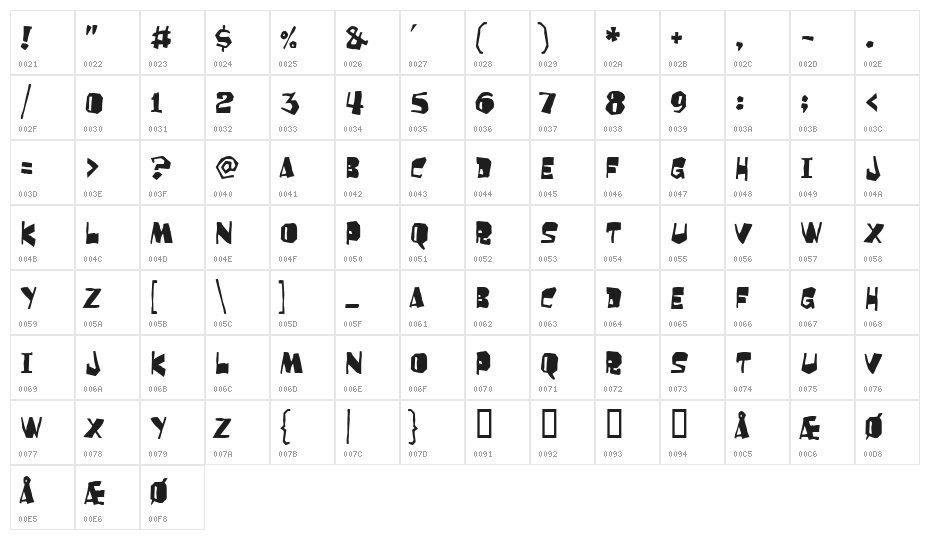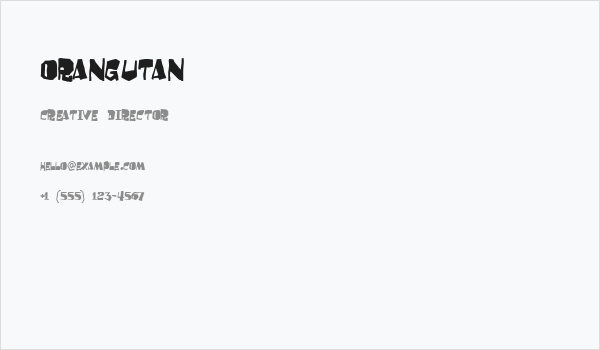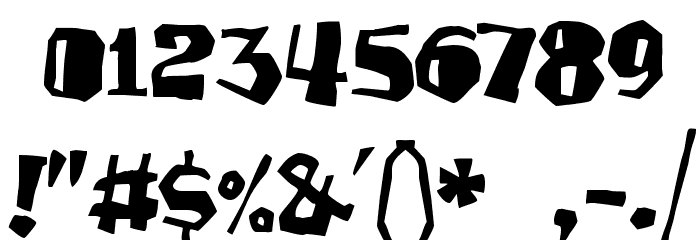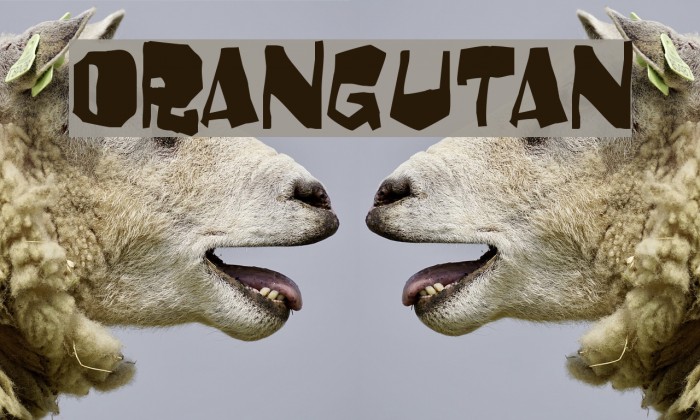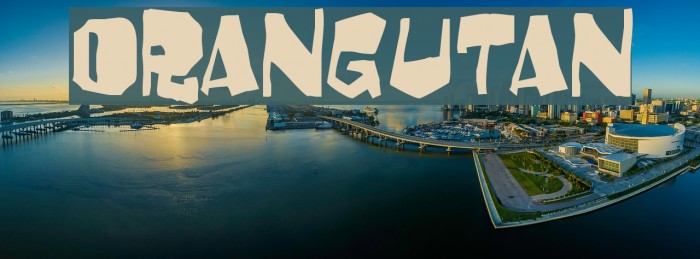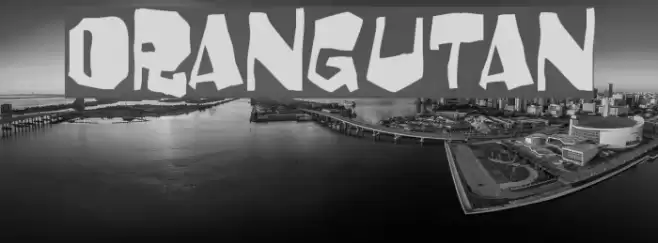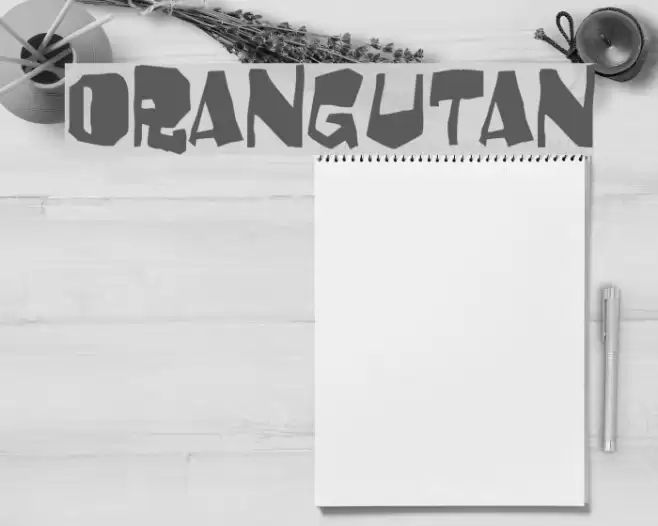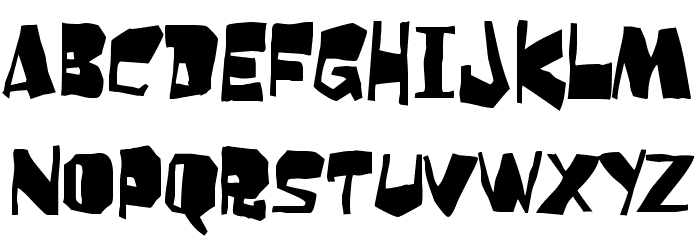
Orangutan Font
Orangutan Description
This font features a bold and dynamic style with a rugged, hand-drawn appearance. The characters are irregular and angular, giving them a unique, edgy look. The uppercase and lowercase letters maintain a consistent style, with thick strokes and sharp edges. Numbers and special characters follow the same design principles, adding to the font's cohesive aesthetic. The overall impression is one of energy and movement, making it suitable for attention-grabbing designs.
| Proposed Projects | Ideal for posters, album covers, graffiti art, and branding that requires a bold, unconventional look. |